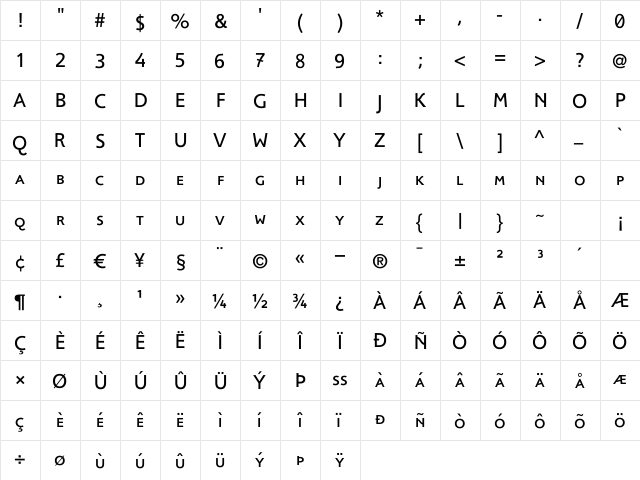
FoxSmallCapsRegular Regular
Design Context for FoxSmallCapsRegular Typeface
FoxSmallCapsRegular offers clean, dependable letterforms without strong stylistic allegiance, making it a practical choice for designers who need flexibility.